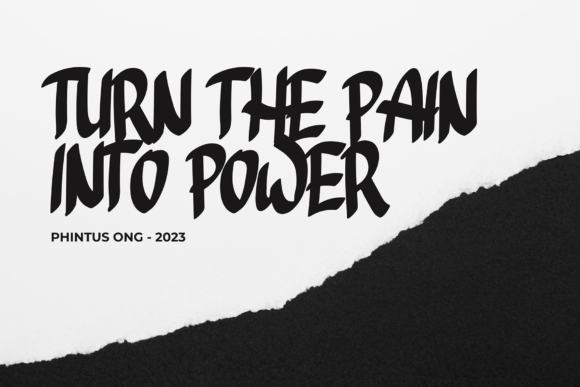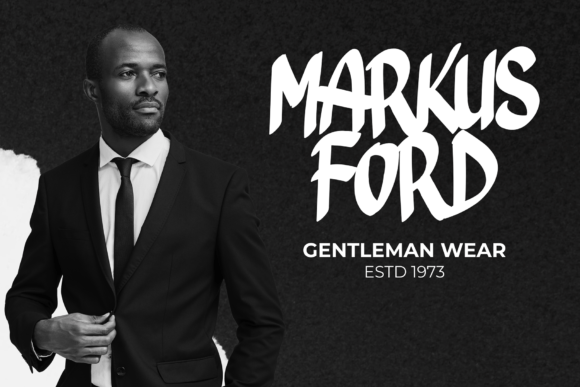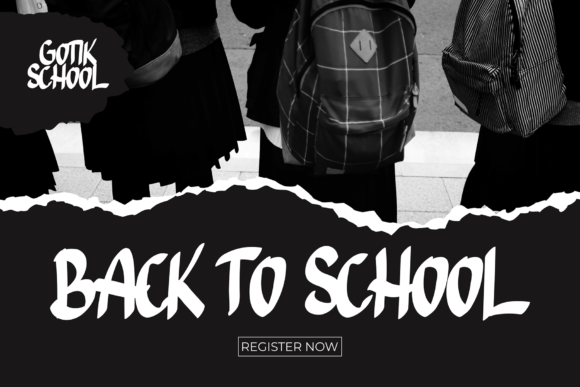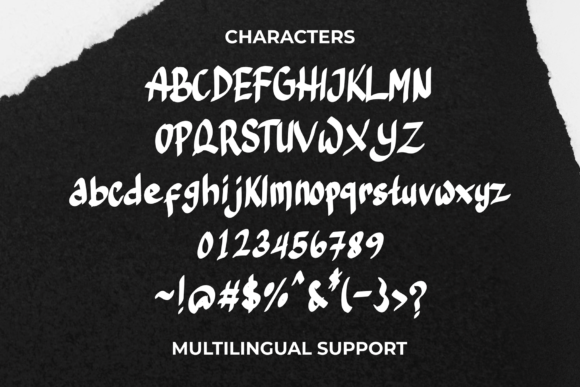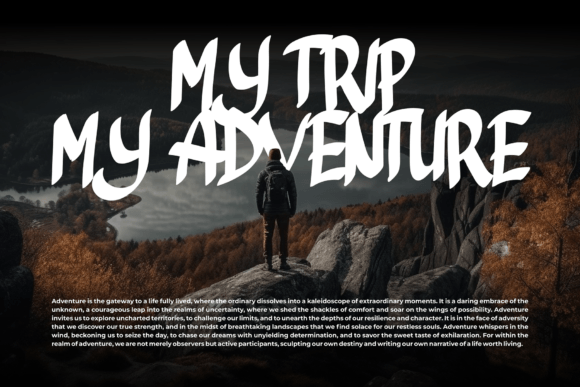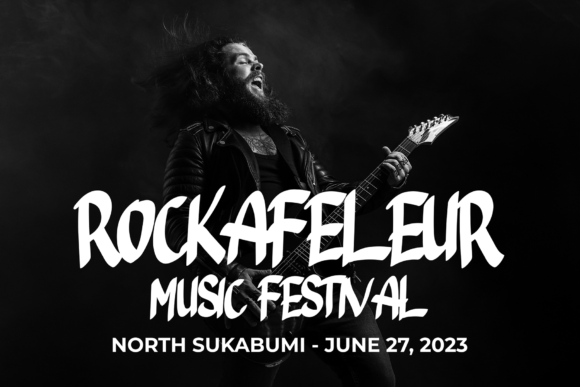
The Magic of Brains Marker Font: Unleashing Creative Expression
I’ll never forget the moment I stumbled upon Brains Marker Font while working on a branding project for a local artisan bakery. I was on a mission to find the perfect typeface that would capture the essence of their handcrafted treats and warm, inviting atmosphere. As I scrolled through font after font, nothing seemed quite right – until Brains Marker came into view. Its unique, handwritten charm instantly resonated with the bakery’s aesthetic, and I knew I’d found my match.
A Personal Review: The Good, the Great, and a Few Quirks
What I Love About Brains Marker ✨
- 💥 Emotional Connection: Brains Marker has a way of infusing designs with a genuine, human touch that resonates with audiences.
- 🎨 Versatility: Its adaptability makes it suitable for various design applications, from branding and advertising to packaging and more.
- 🖌️ Aesthetic Appeal: The font’s deliberate imperfections and organic flow lend a distinctive, artistic flair to any project.
- ✅ Ease of Use: Despite its complex appearance, Brains Marker is surprisingly easy to work with, even for those new to typography.
While Brains Marker is an exceptional font, it’s not without its limitations. For instance:
- 🤔 Legibility at Small Sizes: Like many handwritten fonts, Brains Marker can become less legible at very small sizes. It’s best used at larger sizes or in contexts where readability isn’t a top priority.
- ⚠️ Overuse: Due to its distinctive style, Brains Marker can quickly become overwhelming if overused. Balance is key when incorporating it into a design.
The Story Behind Brains Marker: Designer Inspiration
According to its creators, Brains Marker was inspired by the raw, unbridled energy of street art and the timeless charm of handwritten typography. The font’s design process involved pouring over vintage posters, graffiti, and handwritten notes to distill the essence of free-spirited creativity into a single, cohesive typeface.
Q: What makes Brains Marker unique?
A: Brains Marker’s unique blend of raw creativity, imperfections, and organic flow sets it apart from more traditional typefaces.
Q: Is Brains Marker suitable for body text?
A: While Brains Marker can be used for body text, it’s best suited for larger sizes or headings due to its handwritten nature and potential legibility issues at smaller sizes.